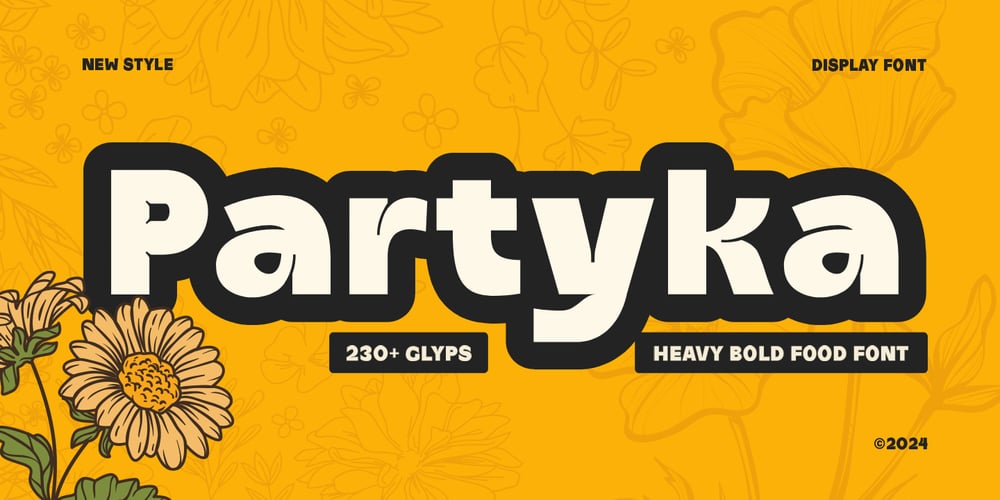
Partyka Font Family was designed by Zamroni Hamzah and published by Sensatype Studio. Partyka contains 2 styles and family package options. Introducing Partyka, a bold display font designed to make your food and beverage branding irresistible. Perfect for menus, restaurant signage, and culinary branding, Partyka ensures your designs stand out with a touch of elegance and flair.The Story Behind Partyka:Partyka was inspired by the vibrant and diverse world of culinary arts. Imagine the bustling kitchens, the colorful dishes, and the lively atmosphere of your favorite restaurant. This font captures that energy and transforms it into bold, eye-catching characters that make any food-related design pop. Partyka is ideal for designers looking to create modern and stylish branding materials that appeal to food lovers and connoisseurs alike.Partyka Font Features: Bold Design: Strong and impactful, perfect for display and branding use. Culinary Flair: Designed with food and beverage branding in mind, adding a gourmet touch to your projects. Versatile Usage: Ideal for menus, restaurant signage, packaging, and promotional materials. Multiple Formats: Available in 4 formats for all your design needs. High Legibility: Clear and readable, ensuring your message is communicated effectively. Stylish Characters: Unique and elegant letterforms that add personality to your designs. Inspirational Previews: Includes sample designs to spark your creativity. Perfect For: Menus and Signage: Create eye-catching menus and restaurant signage that attract customers. Branding: Develop cohesive and stylish branding materials for cafes, bistros, and gourmet markets. Packaging: Design elegant and appealing packaging for food and beverage products. Promotional Materials: Enhance flyers, brochures, and advertisements with a bold and modern touch. With Partyka, your food and beverage designs will capture attention and leave a lasting impression. Whether you’re creating menus, branding materials, or packaging, Partyka provides the perfect blend of boldness and culinary elegance. Elevate your culinary branding with Partyka and make your designs as irresistible as the dishes they represent.